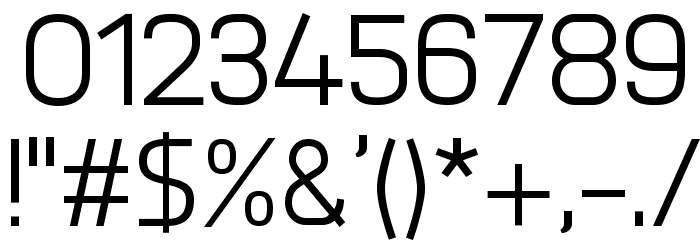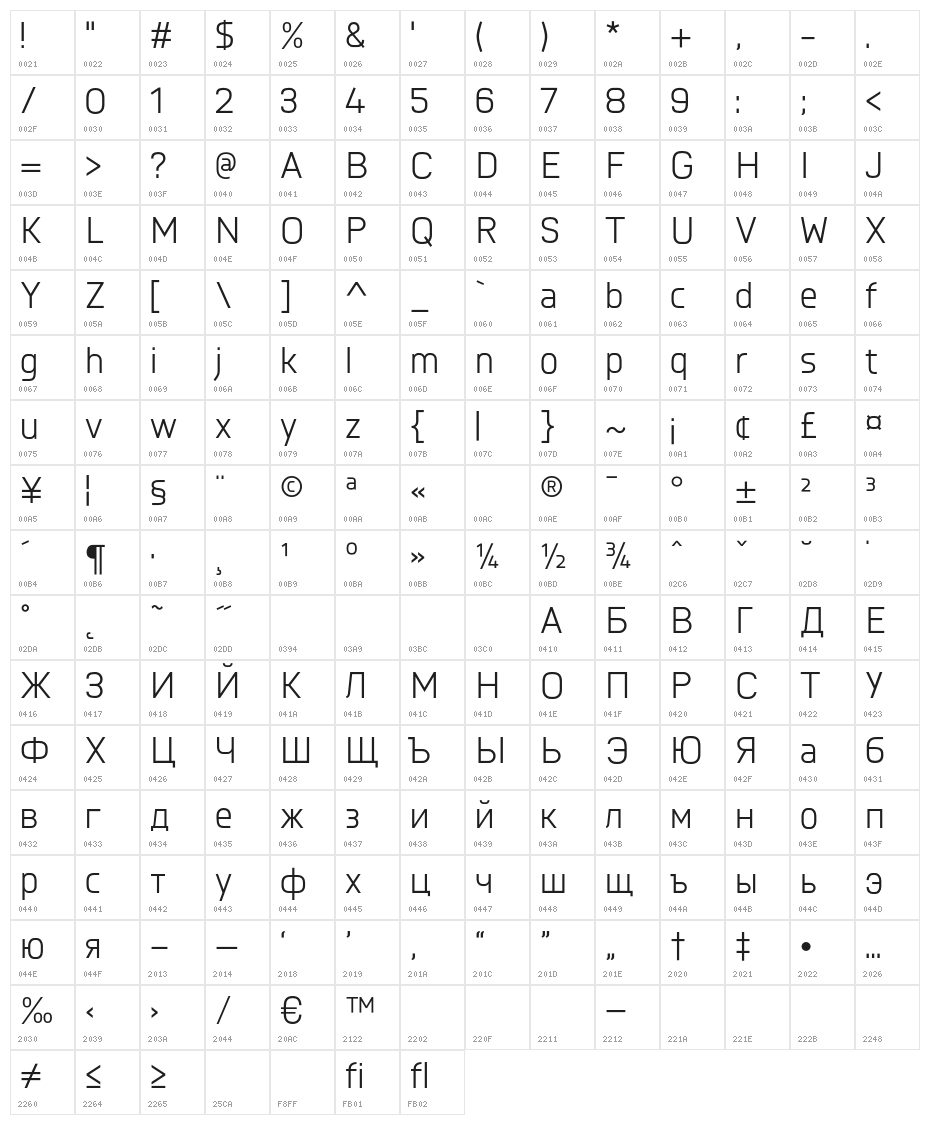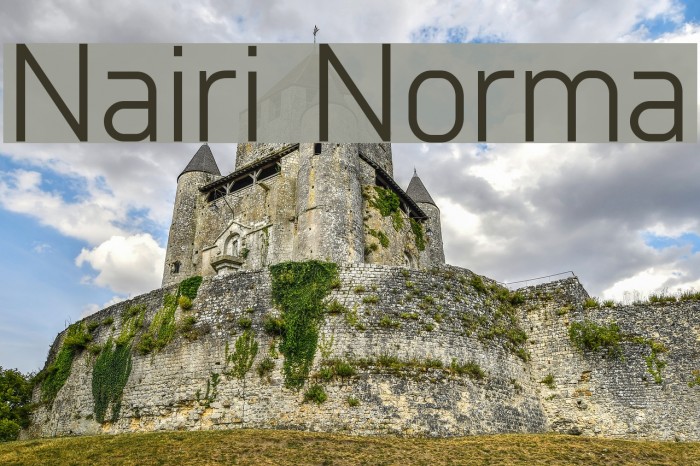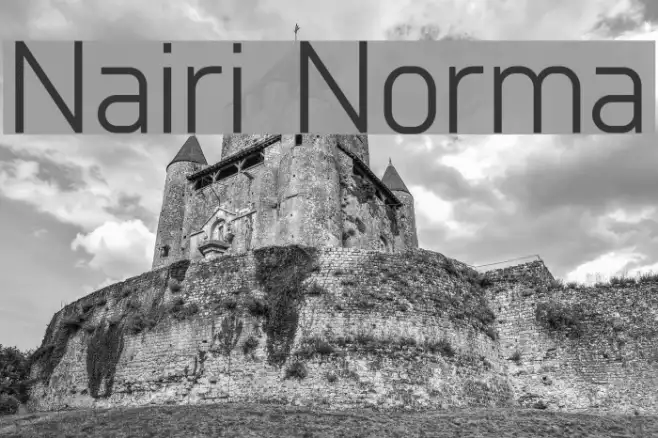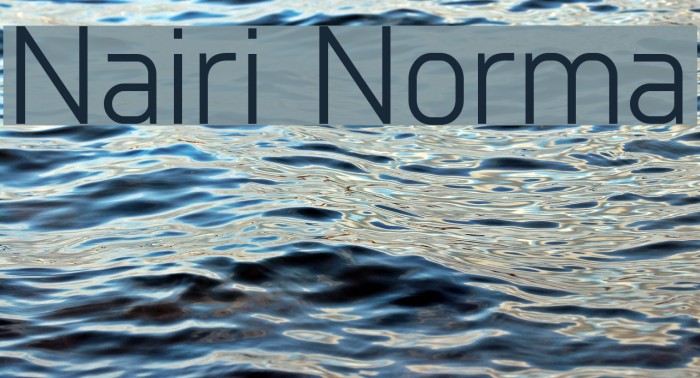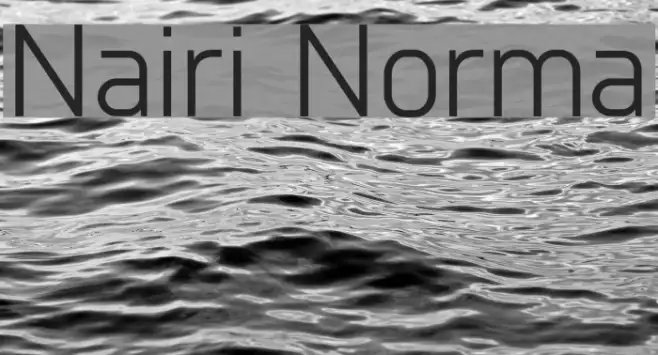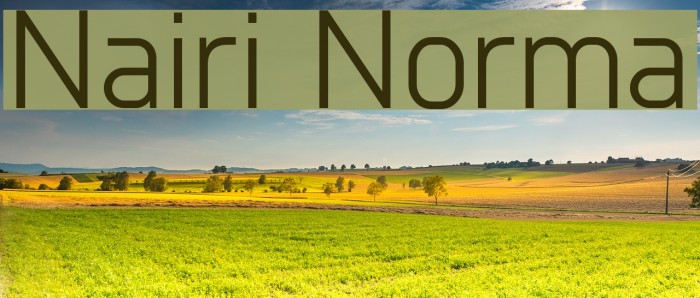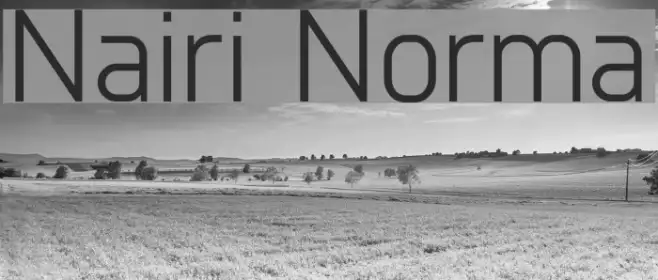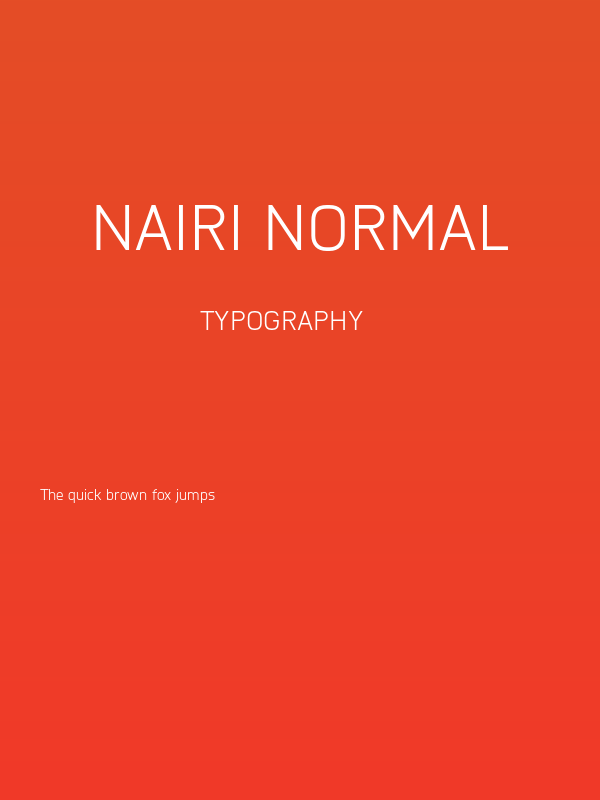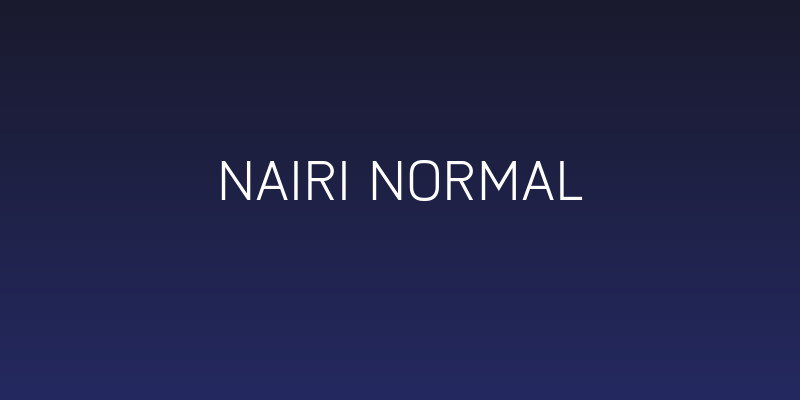
Nairi Normal Font
Nairi Normal Description
This font features a clean and modern sans-serif design, characterized by its simplicity and clarity. The characters exhibit a uniform stroke width, contributing to a balanced and harmonious appearance. The uppercase letters are bold and assertive, while the lowercase letters maintain a consistent style that complements the overall aesthetic. The numerals are straightforward and easy to read, making them suitable for various applications. Special characters are well-defined and integrate seamlessly with the rest of the font. The overall design is versatile, making it ideal for both digital and print media.